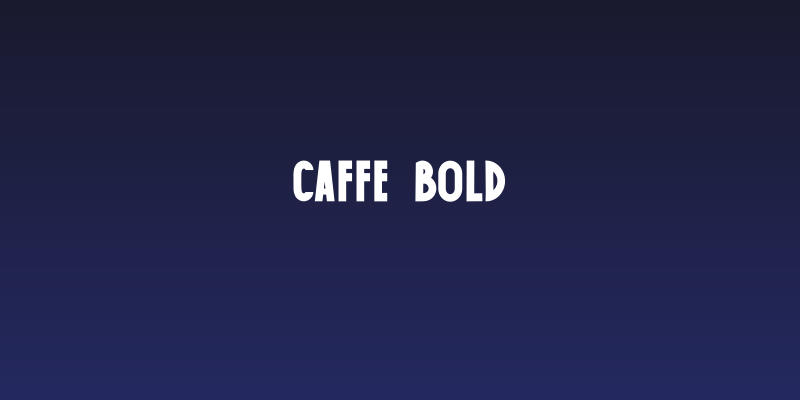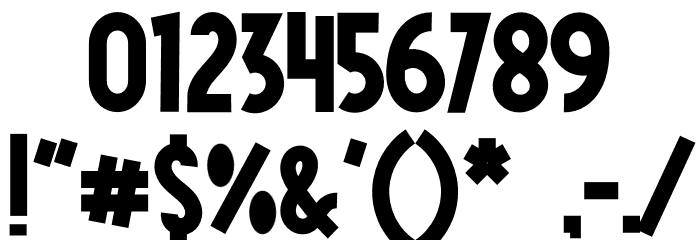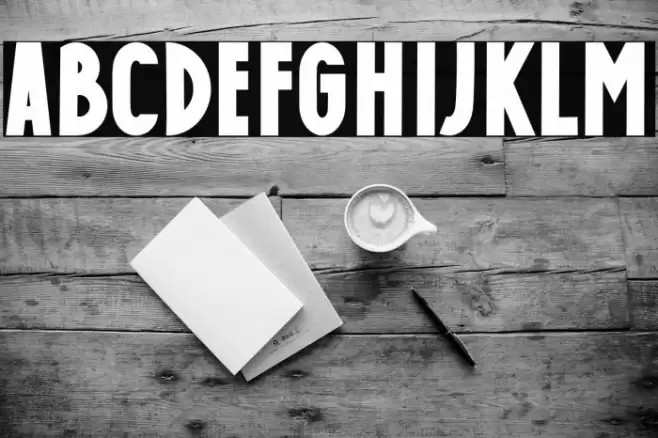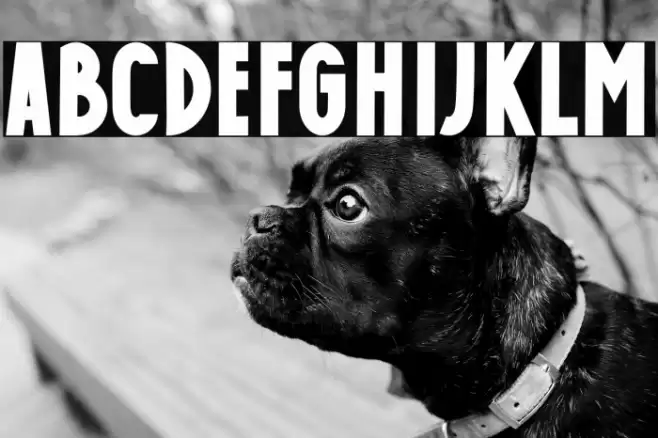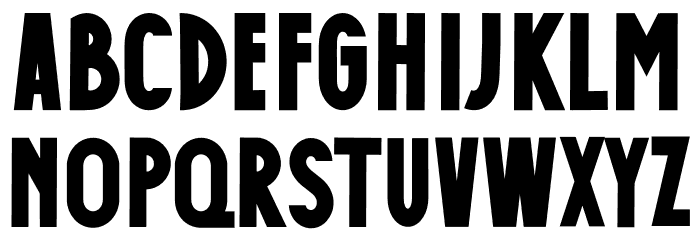
Caffe Bold Font
Caffe Bold Description
This bold and impactful font features strong, thick strokes that create a commanding presence. The characters are uniformly wide, with a slightly condensed appearance that enhances their boldness. The uppercase letters are particularly striking, with a geometric style that is both modern and timeless. The numerals are equally bold, maintaining the font's overall consistency. Special characters are designed with the same bold strokes, ensuring they stand out in any design. This font's high contrast between the thick strokes and the negative space makes it highly legible and visually appealing.
| Proposed Projects | Ideal for headlines, posters, branding, and any project requiring a strong visual impact. |